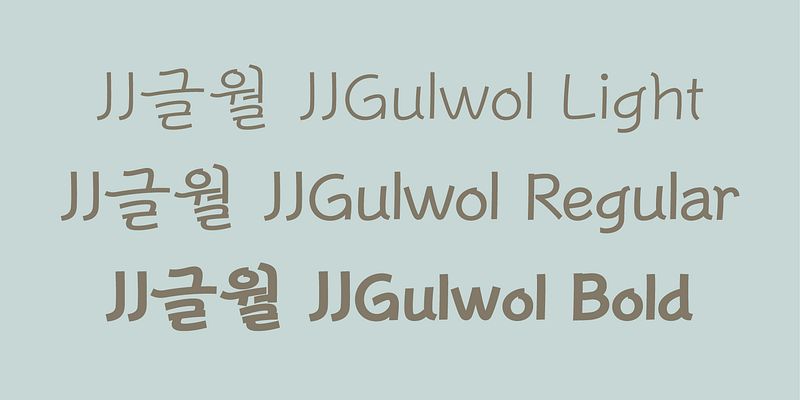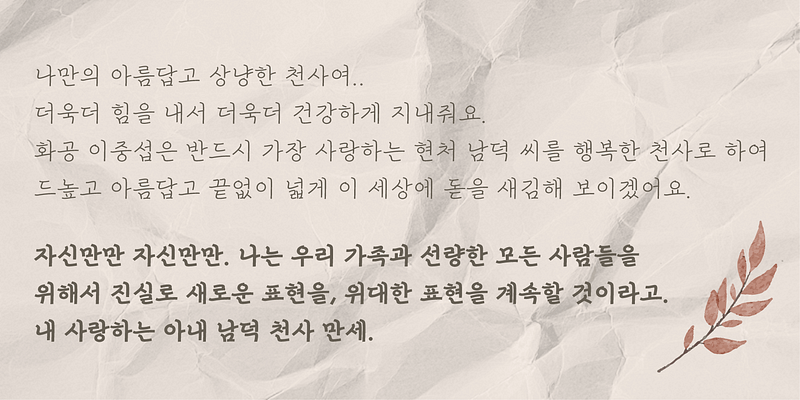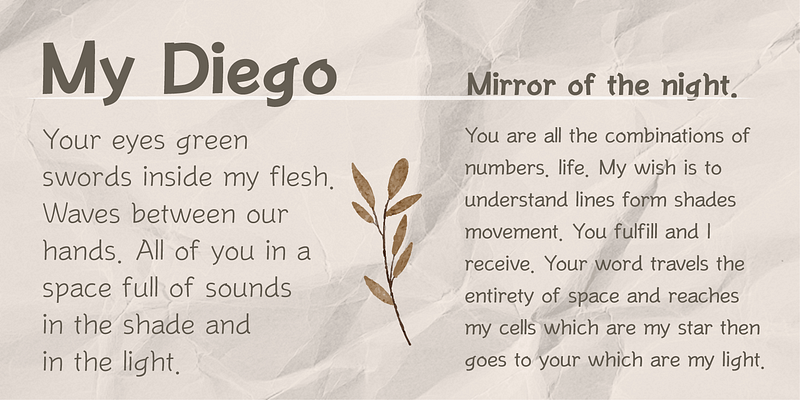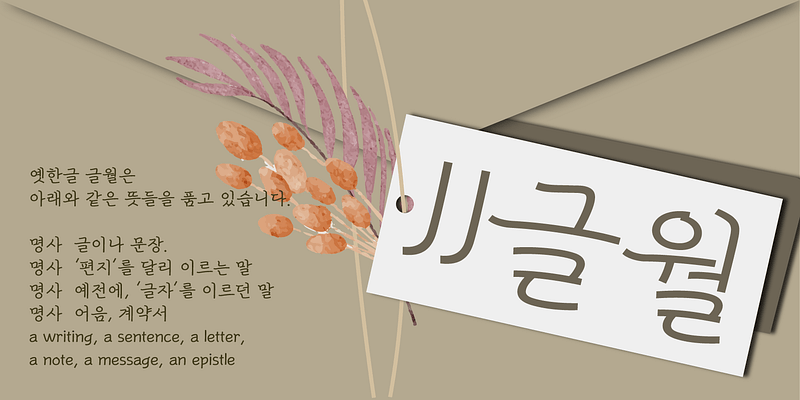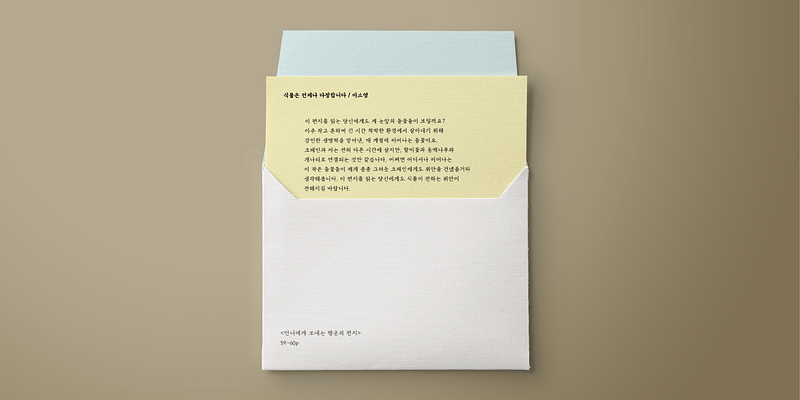
The Geulwol typeface is a graphic font that harmoniously combines the tactile experience of irregular spaces created by handwritten strokes with the graphic beginnings (serifs) and endings of the strokes. It exudes a familiar and intimate impression while maintaining a clean aesthetic, making it an attractive typeface available in three weights. Geulwal effectively conveys a warm texture on any medium and for any content, showcasing its distinctively neat and approachable character.